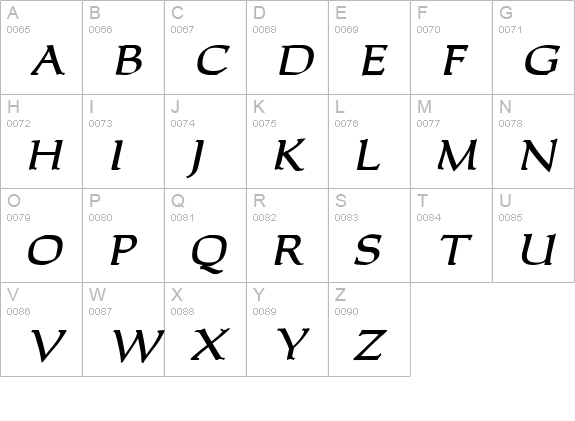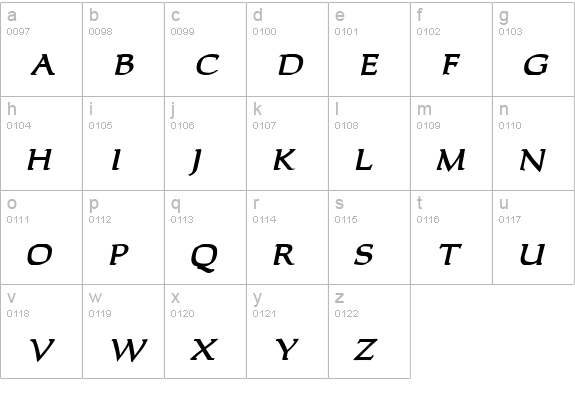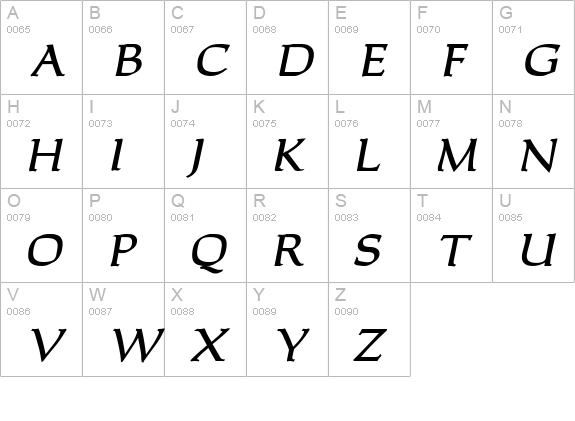
Carla Bold Italic is a strong, high-contrast, italic variant in the Carla typeface family \xE2\x80\x94 well suited to headlines, attention-grabbing titles, and strong calls-to-action.
Introducing Carla Bold Italic font - a stunning display of modern elegance and bold personality. With its sleek and sophisticated design, Carla Bold Italic is perfect for adding a touch of sophistication to any project. Whether you're looking to make a statement with your branding, create eye-catching headlines, or add a touch of flair to your designs, Carla Bold Italic is the perfect choice. What's even better is that Carla Bold Italic is available for free download at FontsMarket.com! That's right, you can easily access this stylish font without any cost. So why wait? Elevate your designs with Carla Bold Italic today and make a lasting impression with its unique and captivating style.